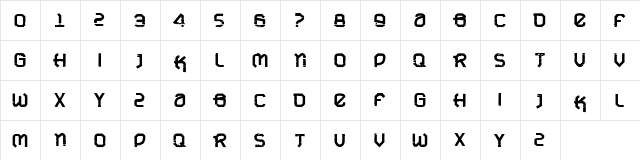
VTKS URBAN TIME bold Regular
| Foundry | douglas vitkauskas |
| Designer | douglas vitkauskas |
Design Context for VTKS URBAN TIME bold Typeface
VTKS URBAN TIME bold is a composed and adaptable typeface that performs quietly and consistently across a wide range of design contexts. Its bold stroke weight gives it real presence on the page.